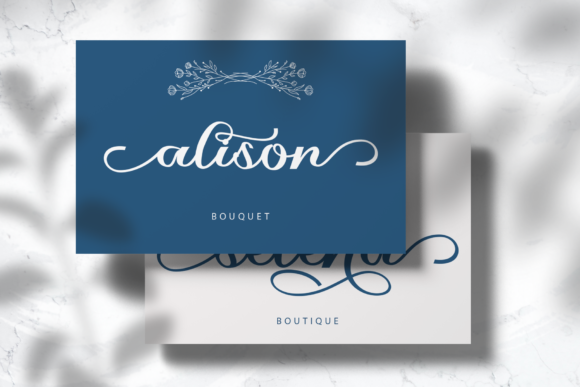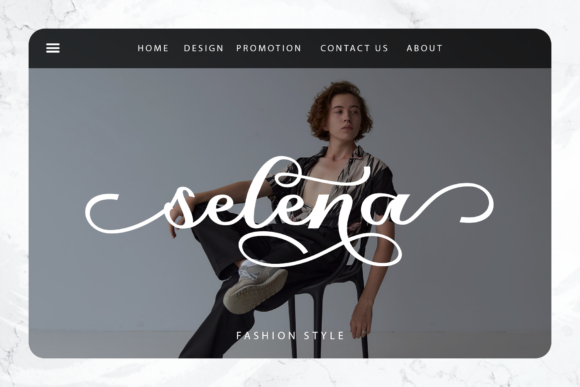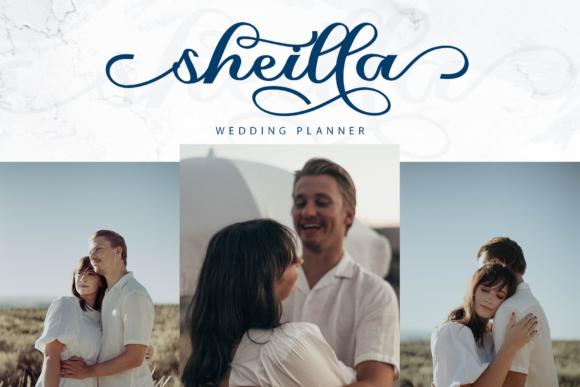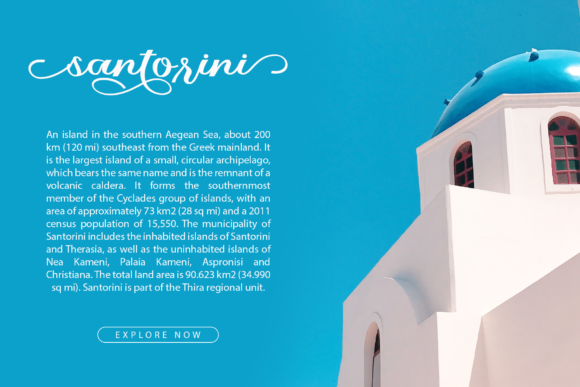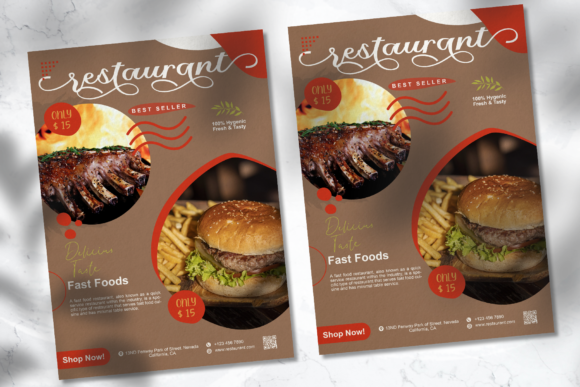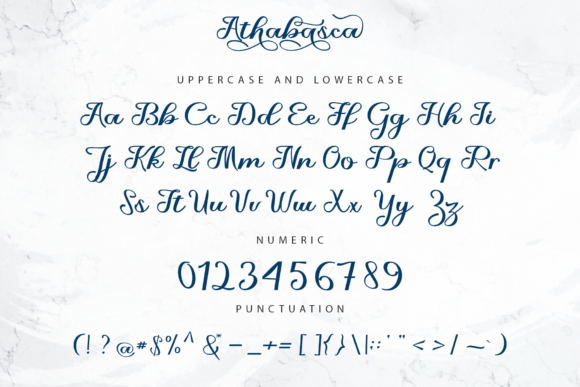
Athabasca Font: Elevate Your Designs with Elegant Script Typography
In the world of typography, few fonts capture the essence of elegance and sophistication as beautifully as the Athabasca Font. This stunning script font is a masterpiece of modern calligraphy, blending timeless classic techniques with a contemporary atmosphere. The result is a typeface that exudes refinement, poise, and impeccable form. Whether you’re a designer, crafter, or simply a typography enthusiast, Athabasca Font is sure to leave a lasting impression.
Inspired by Timeless Classic Calligraphy
Athabasca Font draws inspiration from the rich heritage of classic calligraphy, where the art of beautiful handwriting was elevated to new heights. The font’s creator has skillfully distilled the essence of traditional calligraphy into a modern script typeface, complete with flowing connections, delicate strokes, and a sense of fluid movement. The result is a font that feels both nostalgic and fresh, perfect for designs that require a touch of sophistication.
Contemporary Atmosphere and Impeccable Form
What sets Athabasca Font apart from other script fonts is its unique blend of classic elegance and contemporary flair. The font’s sleek lines, precise curves, and carefully crafted glyphs come together to create a typeface that feels both modern and refined. Whether you’re designing a luxury brand, a wedding invitation, or a high-end product label, Athabasca Font provides the perfect combination of style and sophistication.
One of the most significant advantages of Athabasca Font is its PUA (Private Use Area) encoding. This means that you can access all of the font’s glyphs and swashes with ease, giving you unparalleled creative control over your designs. With PUA encoding, you can effortlessly navigate the font’s extensive character set, including alternative letters, ligatures, and decorative swashes. This feature makes it easy to add an extra layer of elegance and personality to your designs.
Athabasca Font is a versatile typeface that lends itself beautifully to a wide range of design applications. Whether you’re a professional designer, a crafter, or simply a DIY enthusiast, this font provides the perfect tool for creating stunning visual content. Here are just a few examples of how you can use Athabasca Font:
- Wedding Invitations and Stationery: Add a touch of elegance to your wedding invitations, save-the-date cards, and other stationery with Athabasca Font’s beautiful script typography.
- Luxury Branding and Packaging: Elevate your luxury brand with a sophisticated typeface that exudes refinement and poise.
- Signage and Display Graphics: Use Athabasca Font to create eye-catching signage and display graphics that showcase your brand’s personality and style.
- Digital and Print Media: Whether you’re designing for digital or print, Athabasca Font provides the perfect solution for creating visually stunning content.
In conclusion, Athabasca Font is a truly exceptional script typeface that offers a unique blend of classic elegance and contemporary sophistication. With its PUA encoding, impeccable form, and beautiful calligraphic style, this font provides designers and crafters with the perfect tool for creating stunning visual content. Whether you’re looking to elevate your luxury brand, add a touch of elegance to your wedding stationery, or simply explore the world of typography, Athabasca Font is an excellent choice.